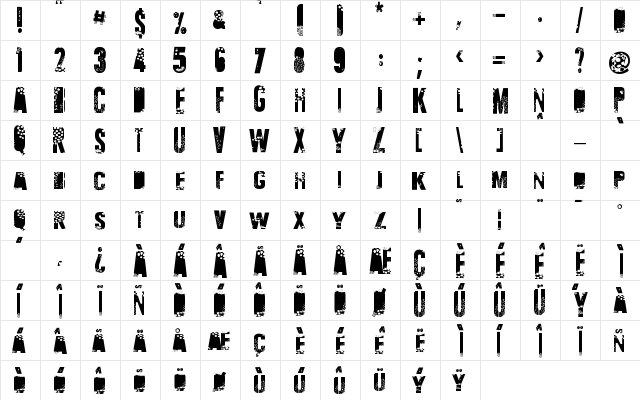
Talvez Assim Regular
Design Context for Talvez Assim Typeface
Talvez Assim is a composed and adaptable typeface that performs quietly and consistently across a wide range of design contexts.